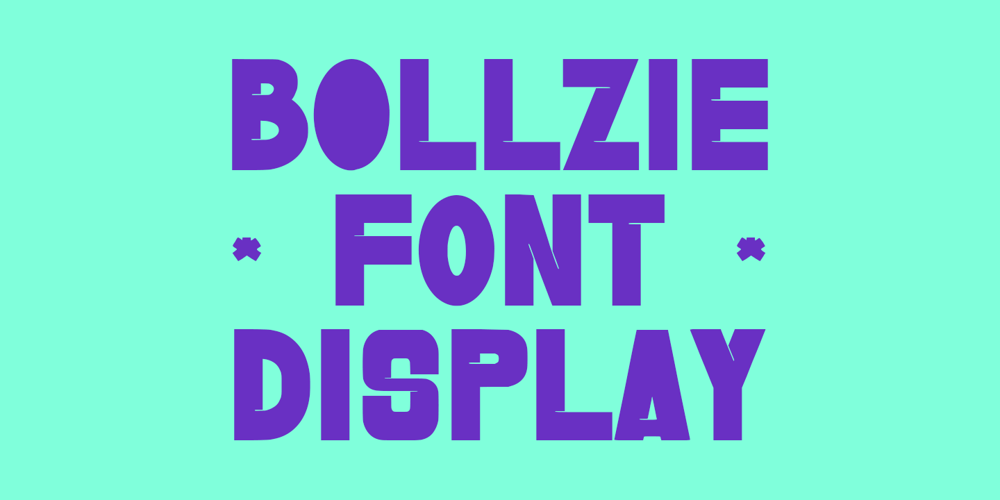
MC Bollzie
MC Bollzie font
MC Bollzie Font Family was designed by Gilang Maulana and published by Maulana Creative. MC Bollzie contains 1 styles and family package options. Bollzie is a modern sans serif font. With bold tall and sharp stroke, fun character with a bit of alternates to give you an extra creative work. Bollzie font support multilingual language. This font is good for logo design, Social media, Movie Titles, Books Titles, a short text even a long text letter and good for your secondary text font with sans or serif. Make a stunning work with Bollzie font.Cheers,Maulana Creative